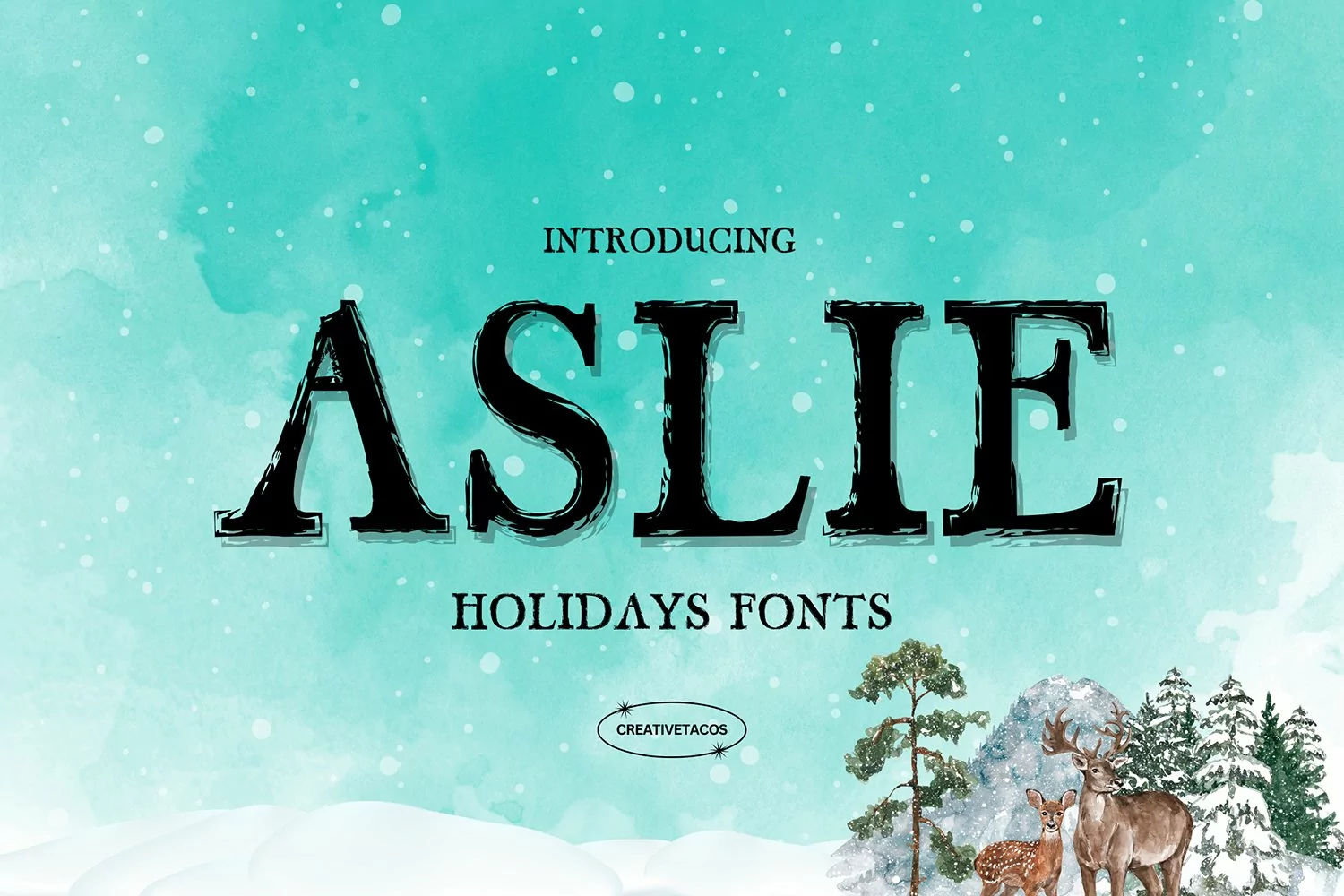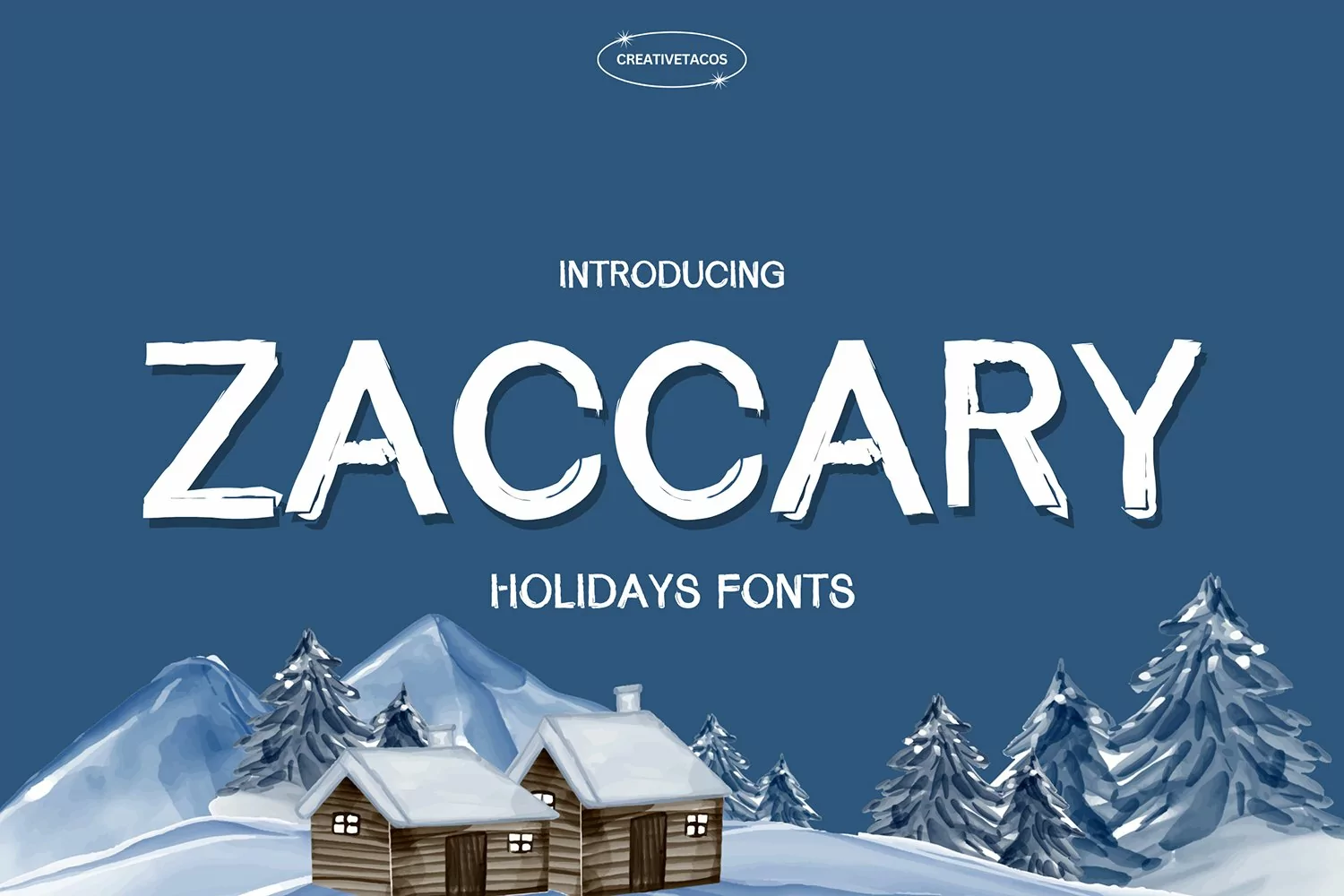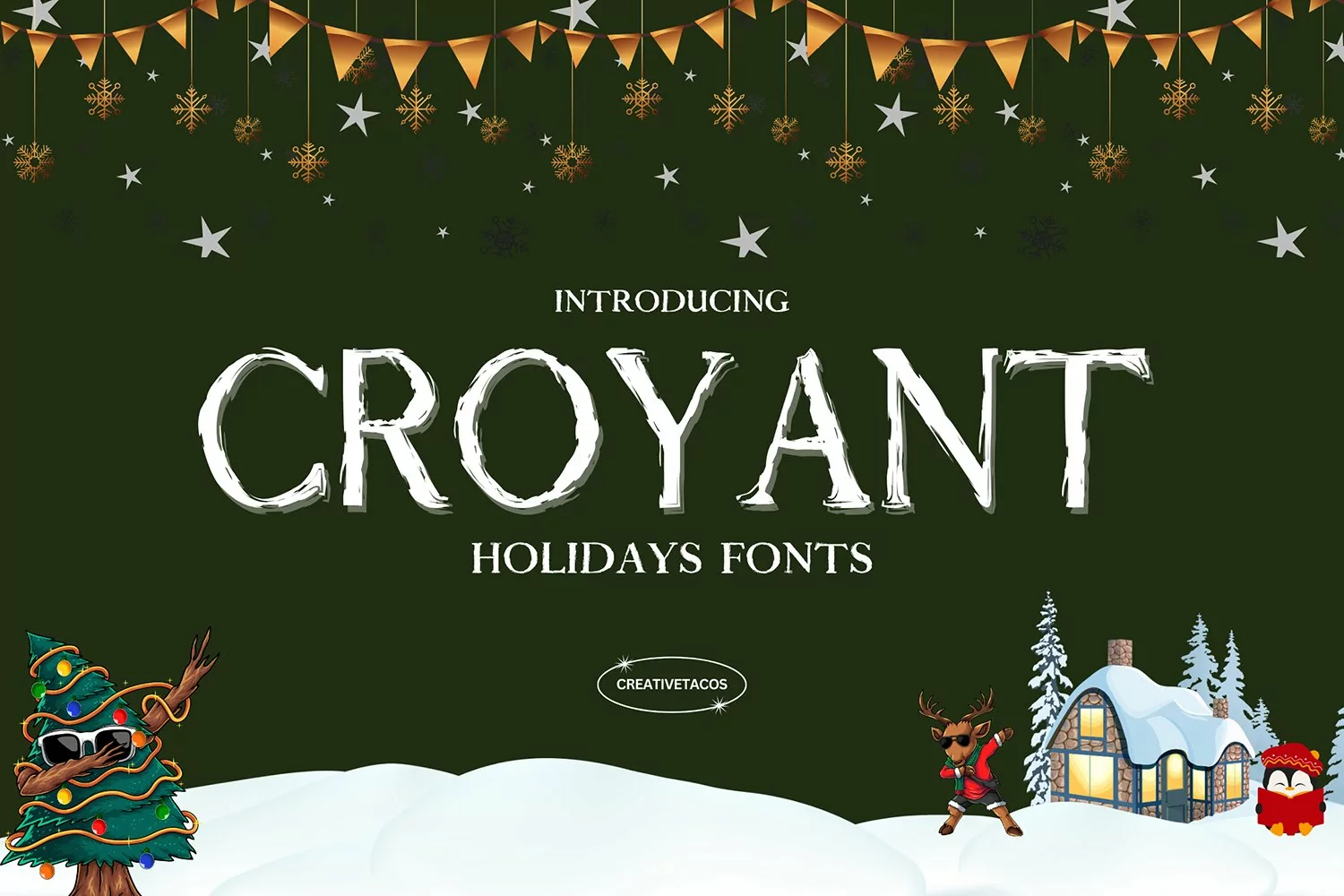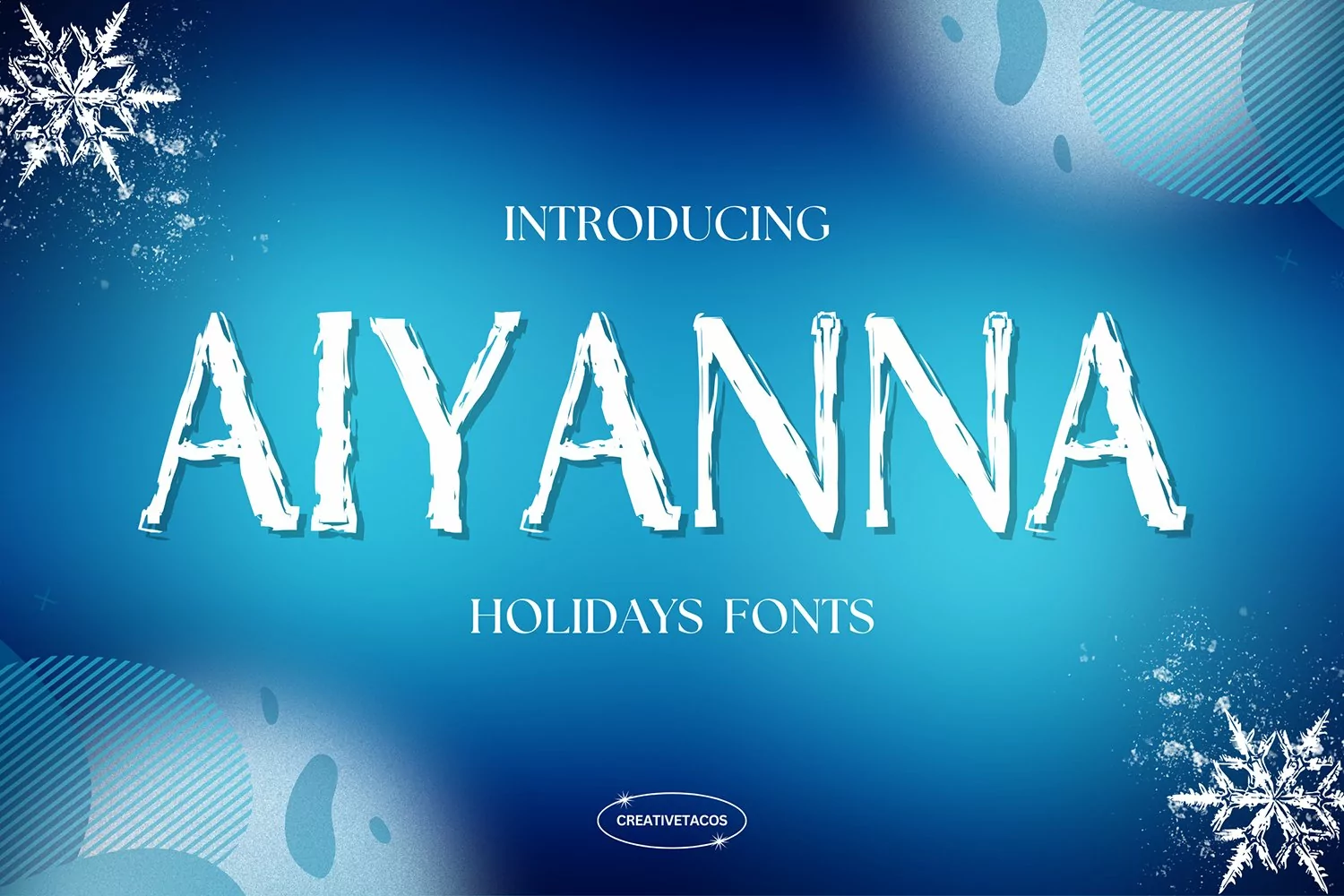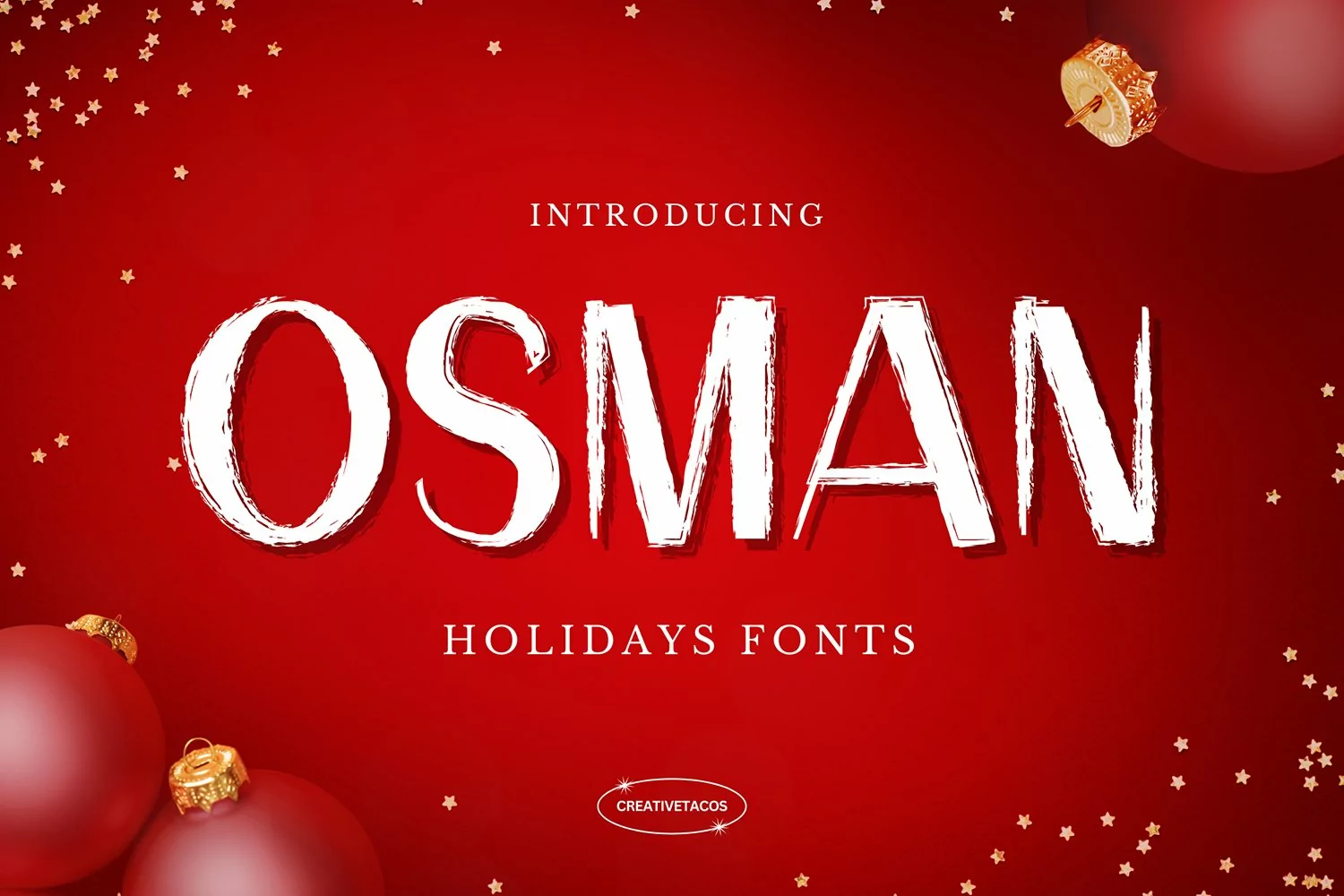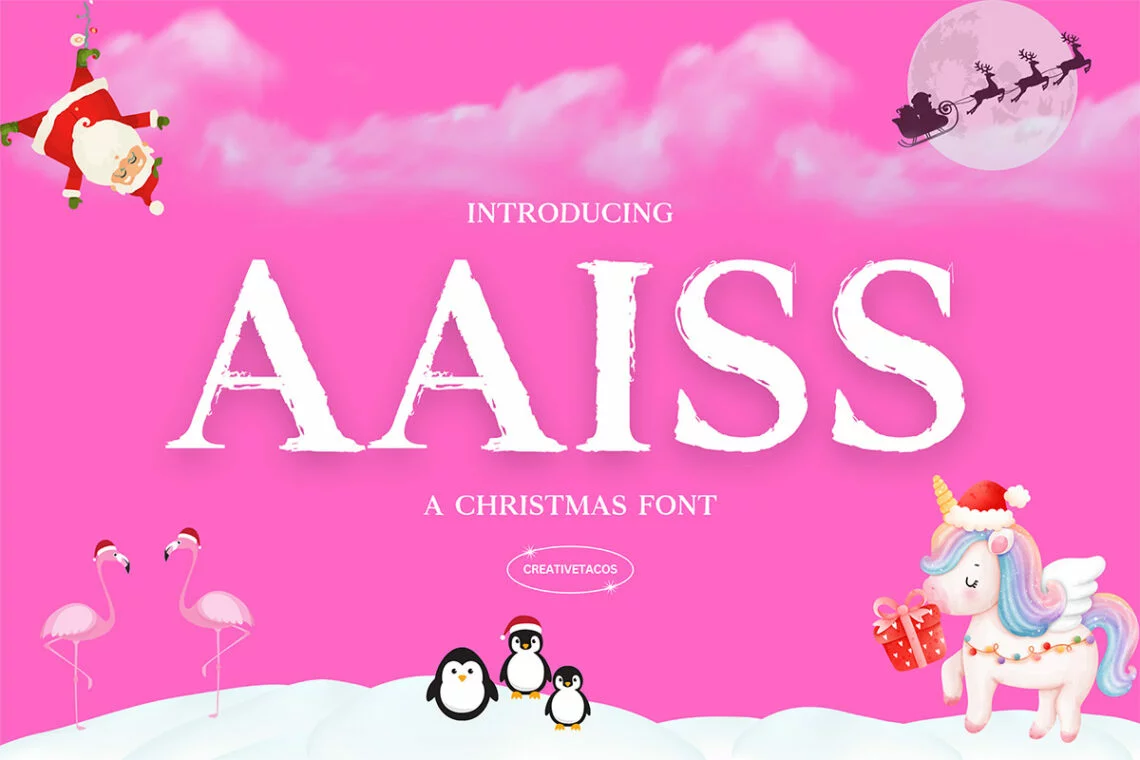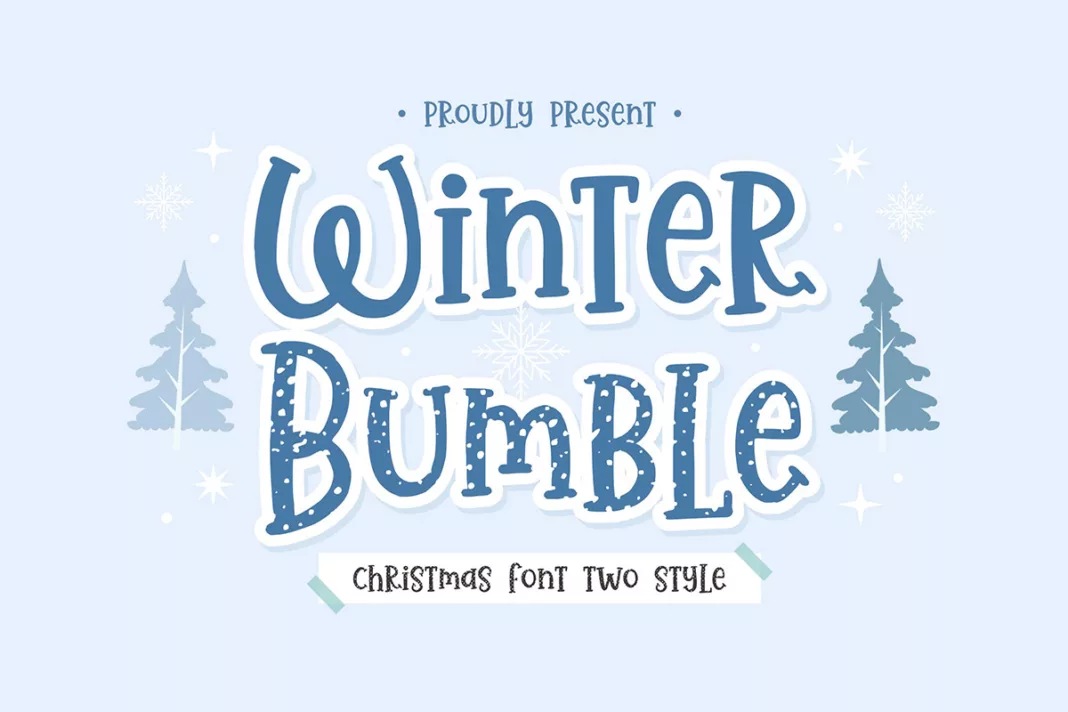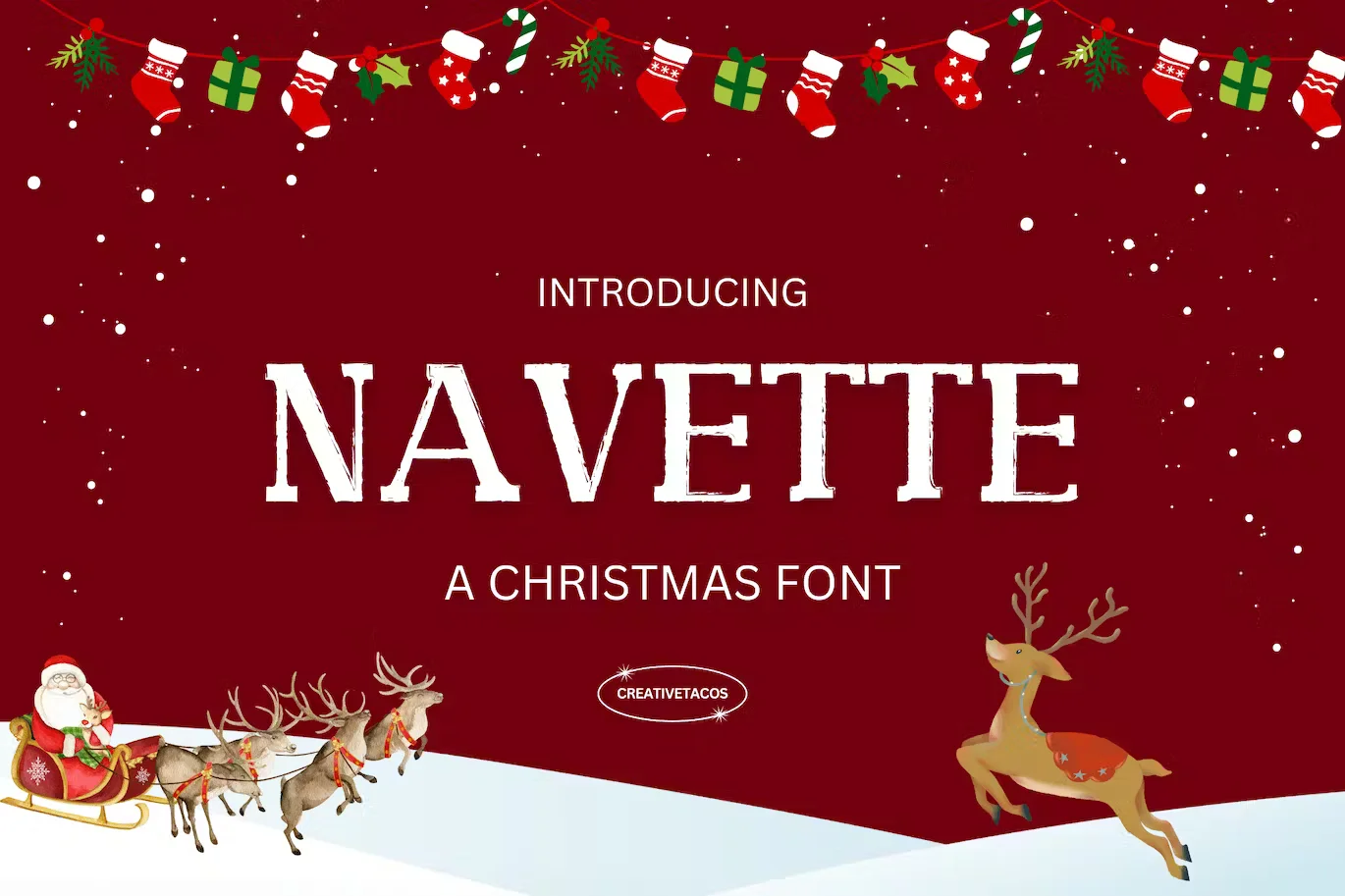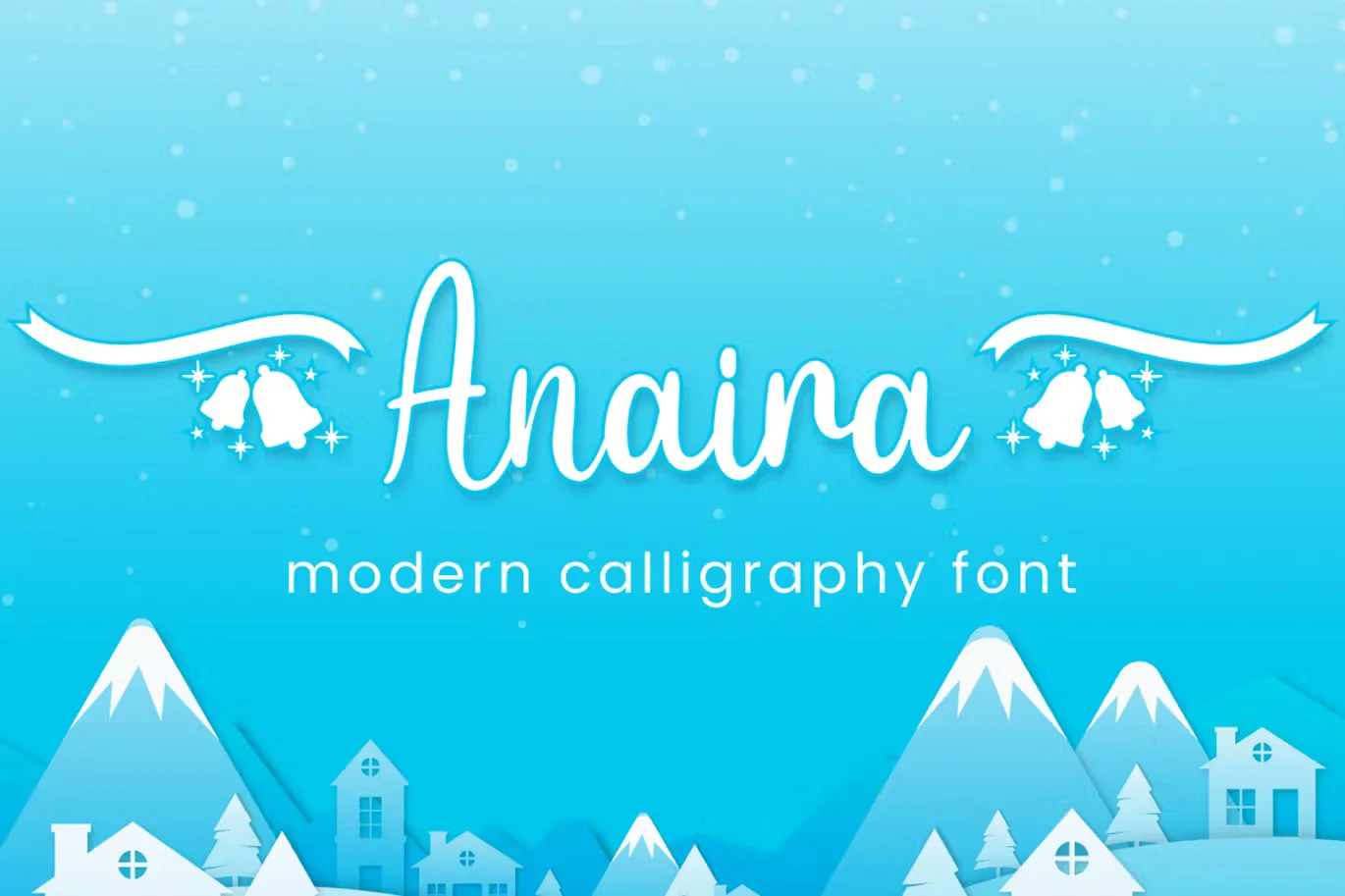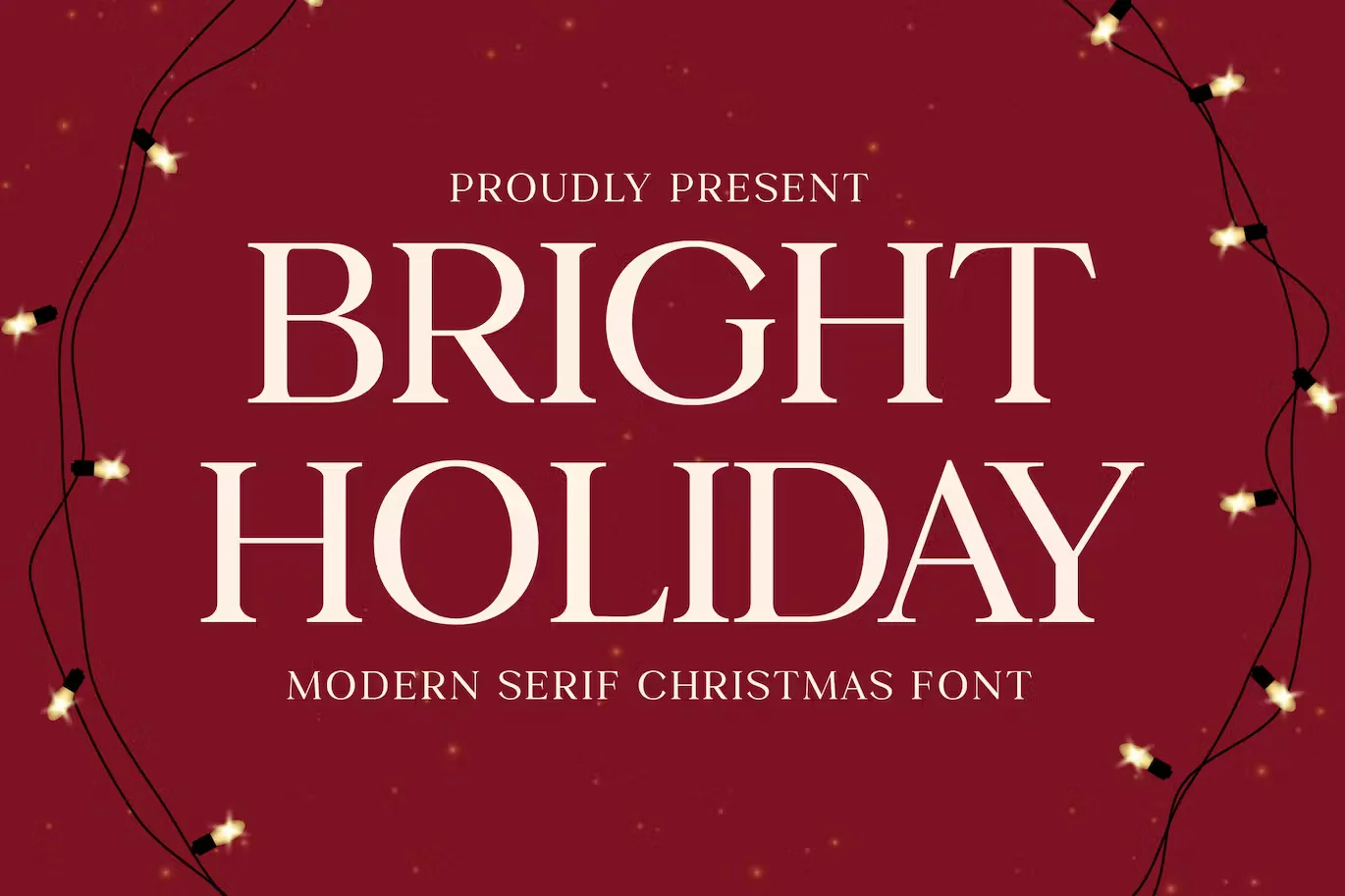
60 Holiday Fonts to Make Your Christmas Designs Stand Out
It’s the most wonderful time of the year, and what better way to spread the holiday cheer than with stunning Christmas designs? Whether you’re crafting greeting cards, party invitations, or festive advertisements, the right font can transform your creation. This guide showcases 60 best holiday fonts that promise to bring a dash of magic to your Christmas designs. From whimsical scripts to traditional typefaces, these fonts are sure to make your designs stand out!
Unwrapping the Magic of Holiday Fonts
Before we jump into our list, let’s talk about what makes a great Christmas font. Holiday fonts often feature elements like flowing scripts, frosty textures, or classic calligraphy, capturing the essence of the festive season. They can range from playful and whimsical to elegant and sophisticated. The key is to choose a font that complements the tone of your design and adds that special festive touch.
Aslie Holidays Fonts
I am pleased to present the Aslie Holidays Font, a versatile brush font with a timeless look that will enhance the look of your holiday designs and make them more lively and attractive.
Zaccary Holiday Fonts
We are very happy to share Zaccary Holidays Font, a modern, charming and stylish textured font that is waiting to be used in your upcoming holidays projects!
Croyant Holidays Fonts
With Croyant Holidays Font, you will be able to create attractive, sophisticated and modern holiday designs that add a trend-setting touch to your upcoming project.
Aiyanna Holiday Fonts
It is with great pleasure that we introduce Aiyanna Holidays Font, a versatile and timeless brush font that will make your holiday designs more fun and attractive with its trendy look.
Osman Holidays Fonts
Osman Holidays Font is an incredibly versatile, aesthetic and visually appealing bold font that is perfect for all holidays-themed designs and will leave a lasting impression.
Aaiss Christmas Font
Aaiss Christmas Font is a festive and decorative font that is perfect for adding a touch of holiday spirit and letting your creativity shine in your design projects this holiday season.
Winter Bumble Display Typeface
Winter Bumble Display Typeface is a unique duo of festive fonts while one is display and the other one is decorative altogether making the best duo for your christmas design project.
Christmas Winter Calligraphy Font
Christmas Winter Calligraphy Font is a modern and handwritten font which has flowing letters that will give your designs a unique and sweet look.
Navette Christmas Font
Hey, check out Navette Christmas Font, it’s a joyful and decorative font that is perfect for adding a festive touch to your designs during the holiday season. This font is all about playful and cheerful letter forms that will make your stuff pop.
Anaira – Christmas Font
Anaira is a delicate and incredibly distinct handwritten font with dingbats character of bells & ribbon. Perfect for christmas promotion and christmas design, Fall in love with its incredibly versatile style and use it to create spectacular designs!
Bright Holiday Christmas Font
Bright Holiday elegant Christmas font is an elegant and artistic typeface that can be used to create attractive Christmas designs. This font has a beautiful shape and is great for use in various design projects, from invitations, greeting cards, to posters or flyers.
Christmas Holiday
These hand written letters make for such fun designs! Give you designs that stand out feel with these fun, unique letters.
Atasrikun – Christmas Font
Presenting Atasrikun Font is suitable logo, branding, book, t-shirt, invitation, magazine, winter season, headline and etc. Our fonts have Uppercase & Lowercase, Numeral & Punctuation, Multilingual support and Opentype Features. For Amazing designs you can mix with other fonts as a complement.
Vertrag Holidays Font
Vertrag Holidays Font, a quirky, modern and stylish bold brush display font with a powerful vibe that will help you enhance your holiday design into an eye catcher.
Faaiz Holidays Font
Introducing Faaiz Holidays Font, a stylish and professional textured brush font you’ll love for your holiday design projects.
Gurbuz Holidays Font
Gurbuz Holidays Font is a whimsical, unique and cheerful bold font that embodies the joy and spirit of the holiday season. This font is available in both capital and small letters, numbers, punctuation, symbols with Latin extended character support.